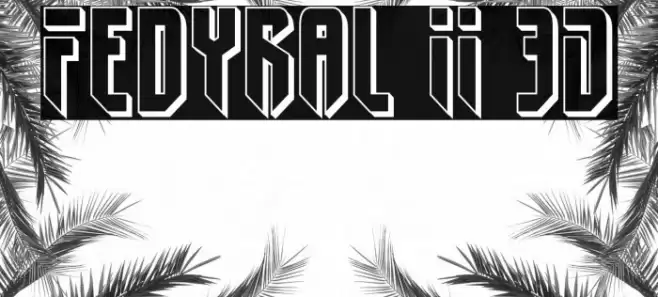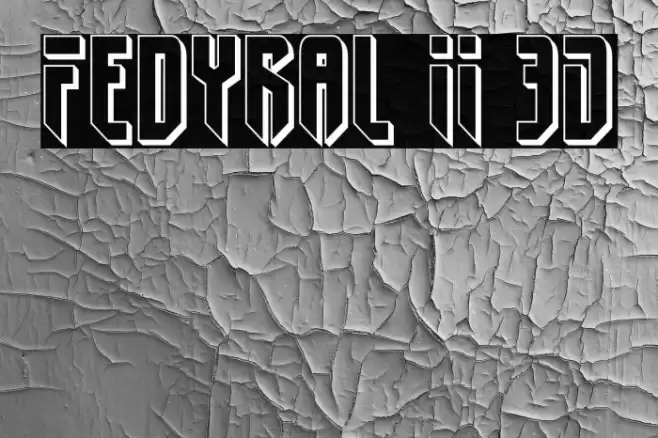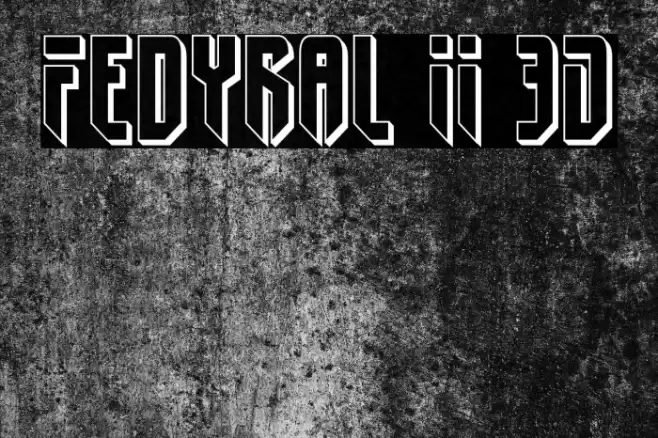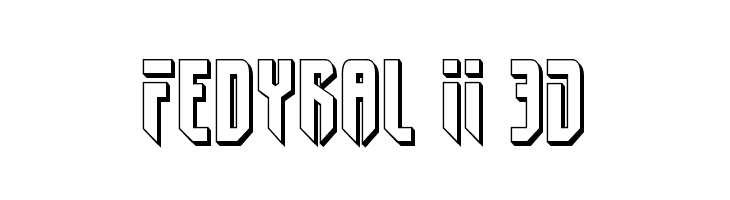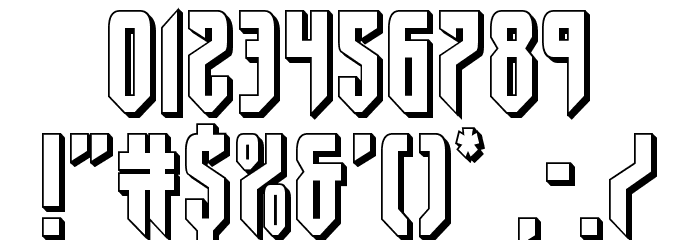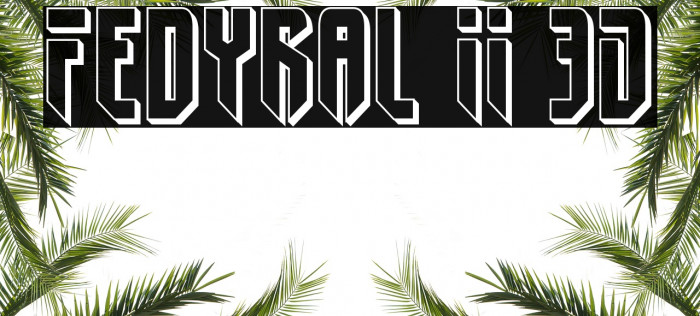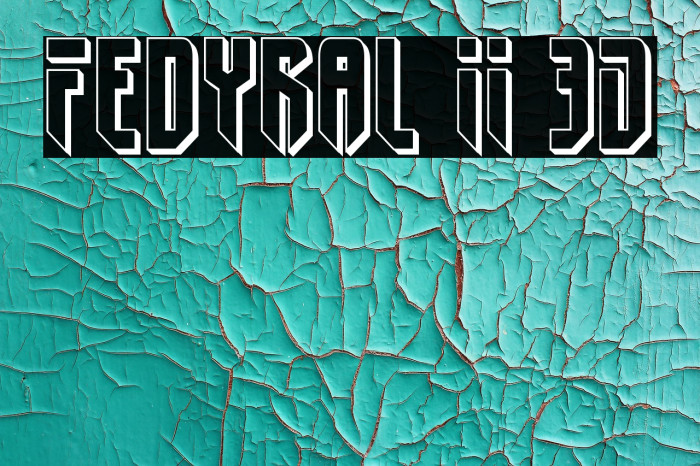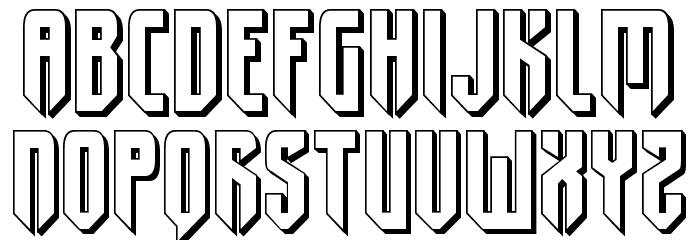
Fedyral II 3D Font
Fedyral II 3D Description
This font features a bold, three-dimensional design with a futuristic and geometric aesthetic. The characters are outlined with a shadow effect, giving them a distinct 3D appearance. The uppercase letters are angular and sharp, with a consistent height and width that creates a uniform look. The numbers and special characters follow the same design principles, maintaining the font's cohesive style. The overall look is modern and dynamic, making it suitable for projects that require a strong visual impact.
A bold, 3D geometric font with a futuristic style from Uncategorized fonts.
- Proposed Projects: Ideal for video game titles, sci-fi movie posters, and tech-themed branding.